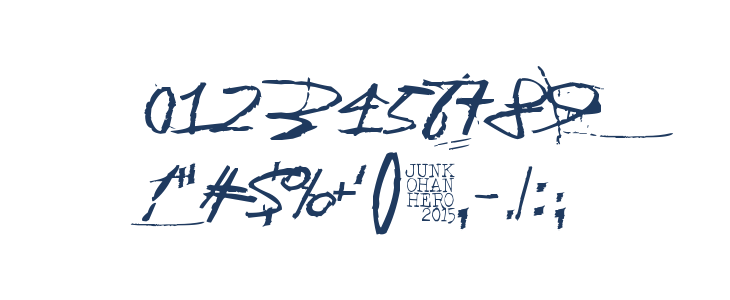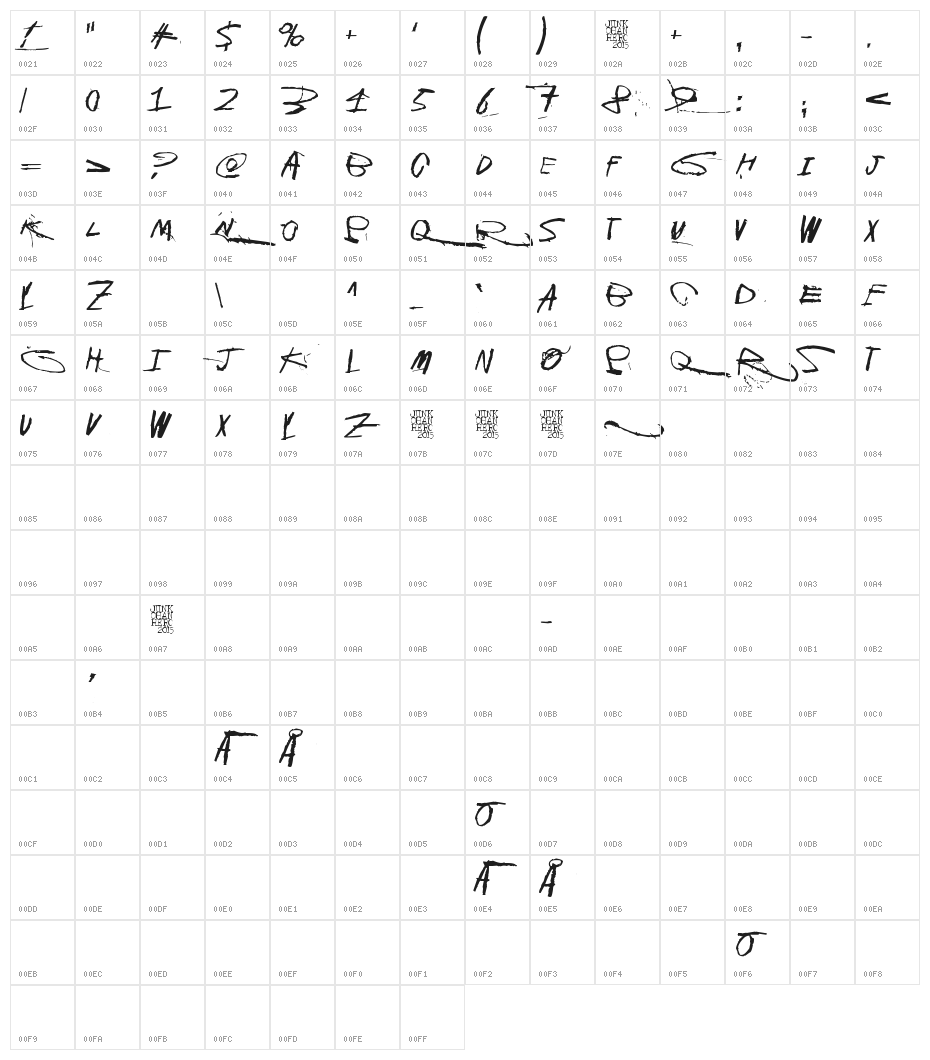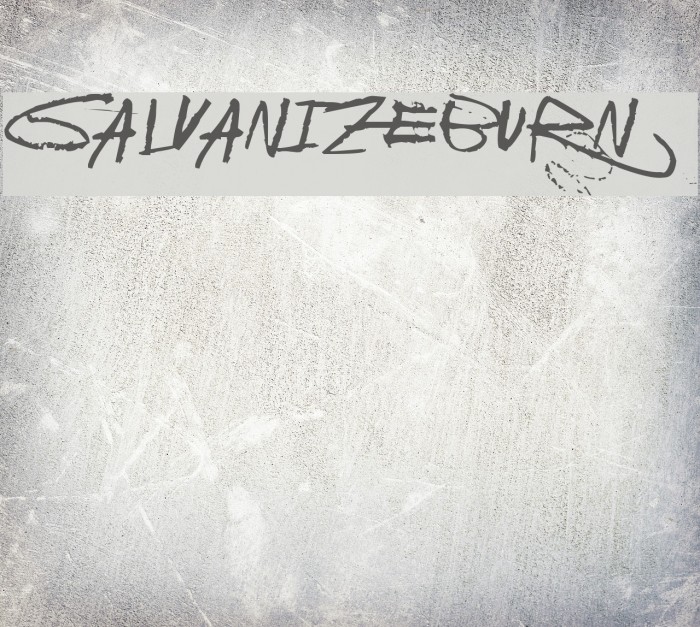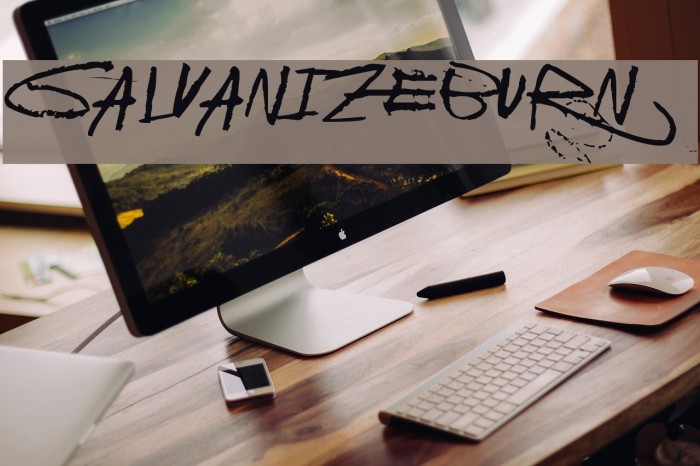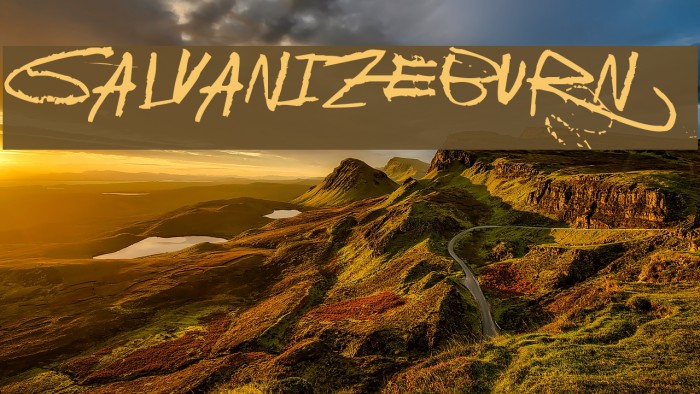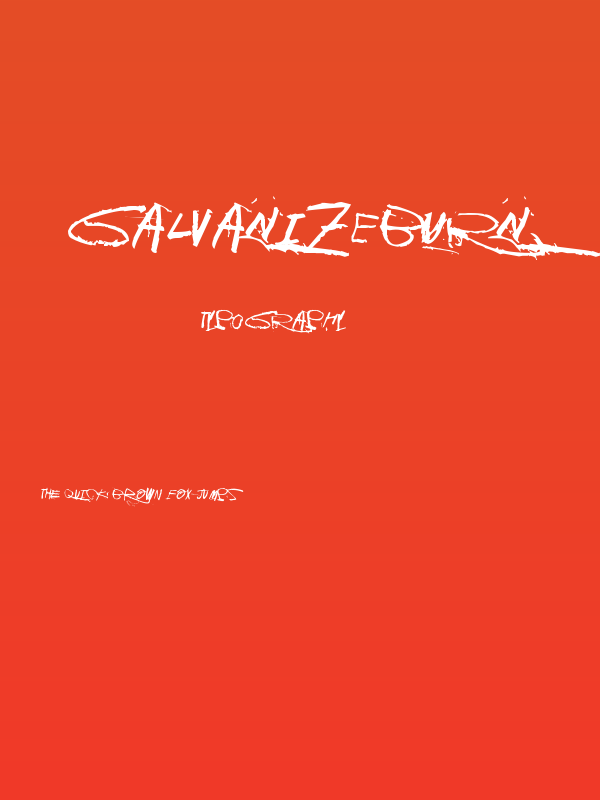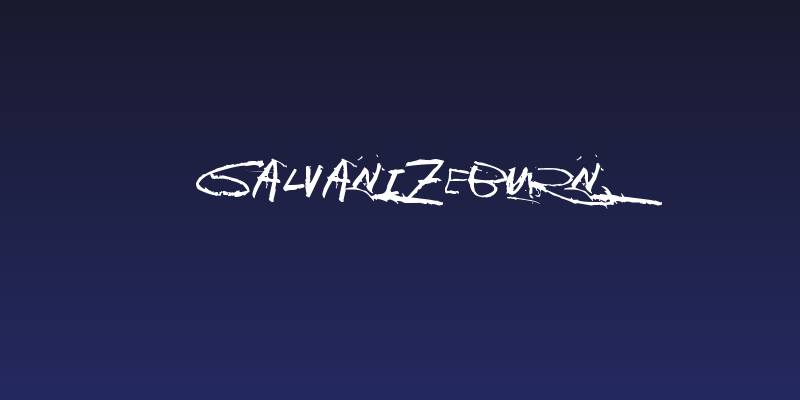
GalvanizeBurn Font
GalvanizeBurn Description
This font is a bold, expressive typeface with a hand-drawn, graffiti-like appearance. The characters are irregular and dynamic, featuring rough edges and a distressed look that gives them a rebellious and energetic feel. The uppercase and lowercase letters maintain a consistent style, with exaggerated strokes and a sense of movement. Numbers and special characters follow the same aesthetic, adding to the overall chaotic yet artistic vibe. This font is designed to stand out, making a strong visual impact with its unique and unconventional style.
| Overall Style | Modern, Urban |
| Proposed Projects | Ideal for street art projects, edgy branding, music album covers, and event posters. |